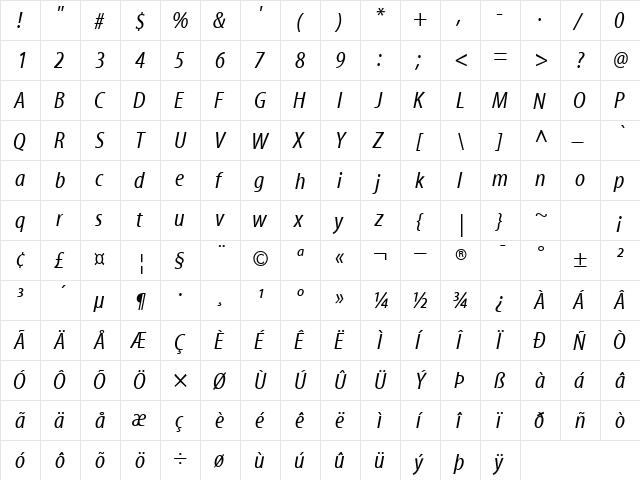
Design Context for MyriadRegularCondensedItalic Typeface
MyriadRegularCondensedItalic is a composed and adaptable typeface that performs quietly and consistently across a wide range of design contexts. The dynamic lean of this cut emphasises speed and emphasis in any layout. The condensed width makes it efficient for tight spaces without sacrificing legibility.
Pro Tip: Use MyriadRegularCondensedItalic for emphasis, pull quotes, and subheadings where its slanted energy can add rhythm to the layout.